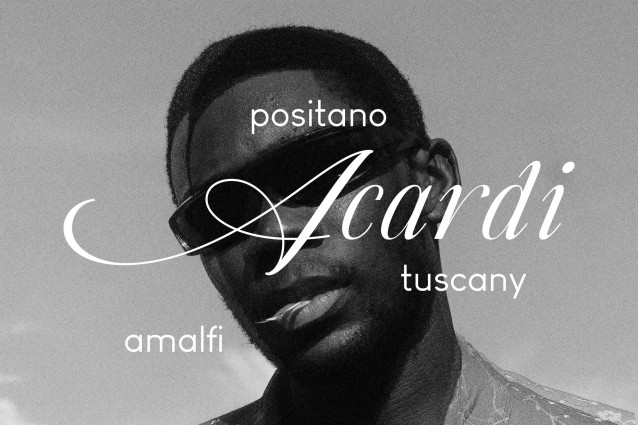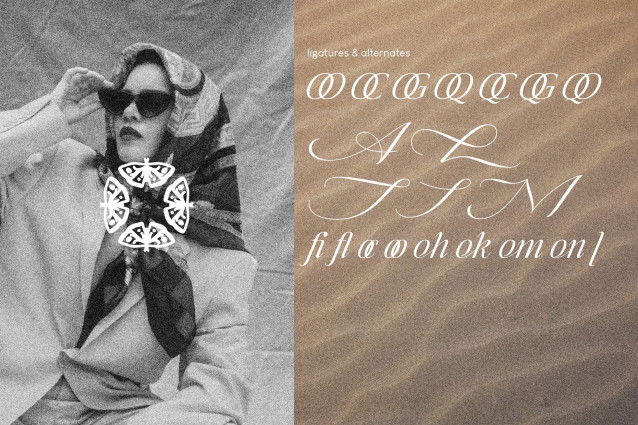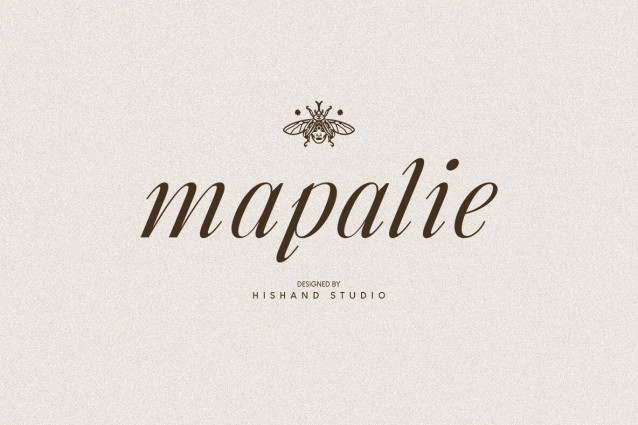
Mapalie Font, an italic serif font that brings a touch of elegance, class, and luxury to your creative projects. Designed with smooth curves, refined letterforms, and stylish details, each character flows gracefully, giving your text a timeless and sophisticated appearance. The italic style introduces just the right amount of movement and personality, making Mapalie not only beautiful to read but also expressive in tone.
This font is perfect for projects where elegance matters most. Whether you’re working on high-end branding, wedding invitations, editorial layouts, or fashion lookbooks, Mapalie delivers a polished and professional aesthetic. Its luxurious feel also makes it a wonderful choice for packaging, logos, and digital designs that aim to leave a lasting impression.
What makes Mapalie even more special is that it comes complete with 26 custom icons, designed to complement the font seamlessly. These icons are simple yet stylish accents you can use to highlight important details, decorate layouts, or add a unique signature touch to your work. They pair beautifully with the typeface, giving you more flexibility and creative freedom without needing extra design elements from outside sources.
Mapalie is not just another serif font it is a creative tool built to elevate your projects. Its versatility means it can move effortlessly between modern and classic contexts, adapting to whatever mood you want to create. Whether you’re a designer, a brand owner, or someone who simply loves typography, Mapalie brings both practicality and beauty to your design toolbox.
With its classy vibe, graceful italics, and bonus icons, Mapalie is here to help your projects feel polished, stylish, and truly unforgettable.